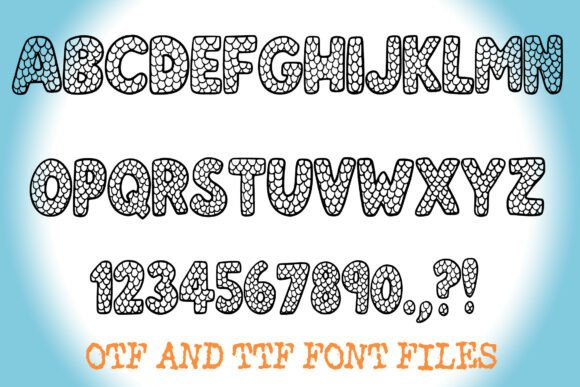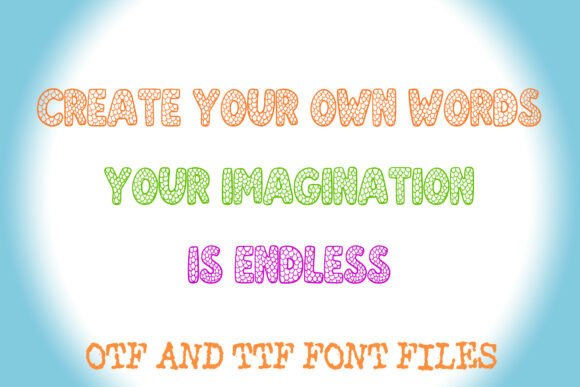
Get Ready to Hook Your Audience with Cartoon Fish Scales Font
Have you ever been browsing through a design store and stumbled upon the perfect font that makes your project instantly pop? For designers, finding that one special font can be a game-changer. For me, it was the moment I discovered Cartoon Fish Scales Font – a delightful typeface that brings the whimsical world of fish scales to life in a fun, bubbly, and animated style.
Cartoon Fish Scales Font is more than just a visually appealing font; it’s an underwater adventure in typographic form. Its unique design makes it an ideal choice for various projects, from children’s books and aquarium branding to ocean-themed parties and playful apparel designs. The font’s versatility and eye-catching visual effect make it a valuable addition to any designer’s toolkit.
- Font Family: Cartoon Fish Scales
- Unique Characteristics: Cartoon-style fish scales design, playful and whimsical feel, perfect for children’s books, games, and other creative projects
- Character Count: Includes a wide range of characters, including uppercase and lowercase letters, numbers, punctuation marks, and special characters
Designer Review: Cartoon Fish Scales Font
Overall, I’d say the Cartoon Fish Scales Font is a unique and playful addition to any design project. Here are some aspects that stood out to me:
- ✨ Whimsical feel: The font’s cartoonish style instantly conveys a lighthearted and carefree vibe, making it perfect for children’s books, advertisements, or social media graphics.
- ✨ Customization options: The font offers various scaling options, allowing designers to adjust the size and style to suit their project’s needs.
- ✨ Fun for creatives: Cartoon Fish Scales Font encourages designers to think outside the box and experiment with creative combinations of colors and textures.
- ⚠️ Limited legibility: At smaller font sizes, the text can become difficult to read due to the font’s cartoonish nature.
Overall, the Cartoon Fish Scales Font is a fun and versatile addition to any designer’s toolkit. While it may have some limitations, its unique style and customization options make it a great choice for projects that require a playful touch.
For best results, use the Cartoon Fish Scales Font in bold or italic styles to add emphasis and visual interest. Experiment with different font sizes and colors to create a cohesive and eye-catching design.
The Cartoon Fish Scales Font is ideal for:
- Underwater-themed designs
- Playful and whimsical branding